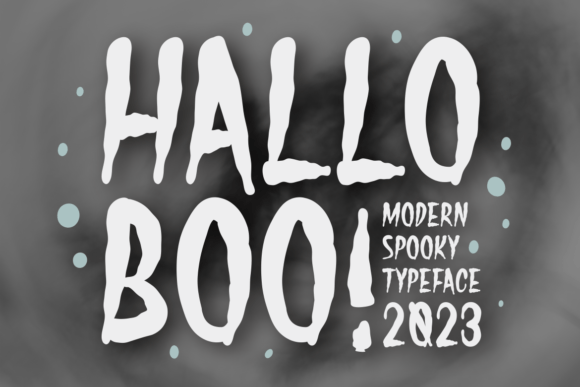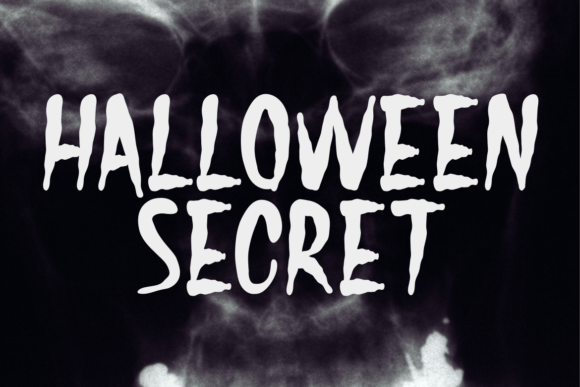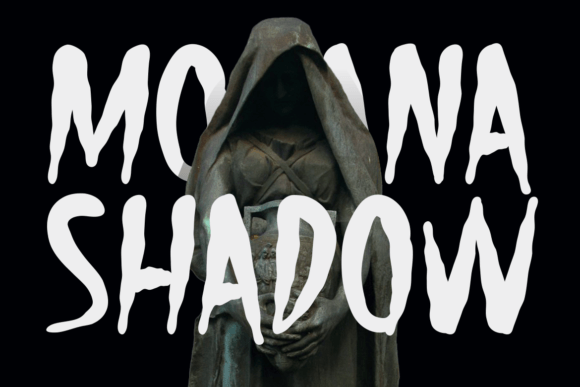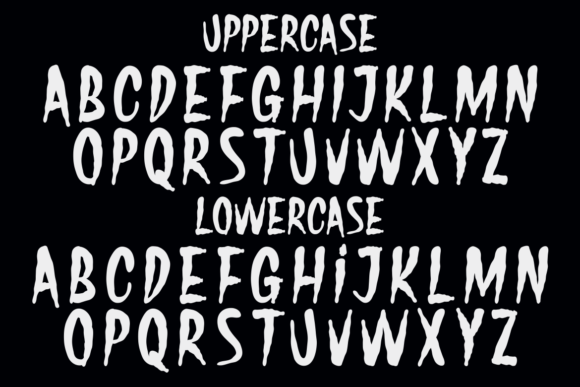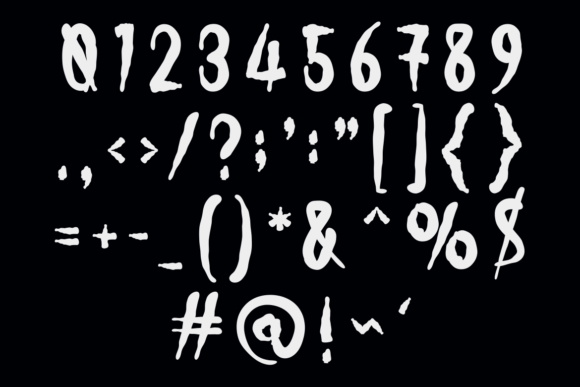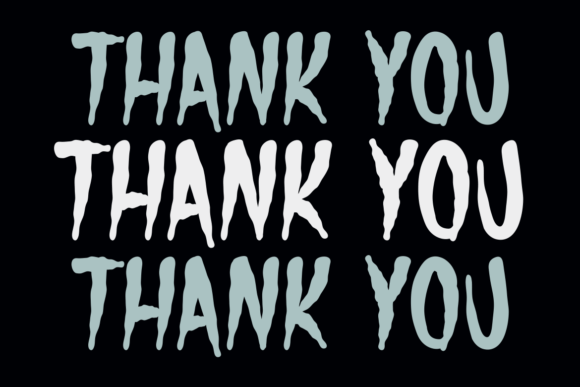
Sparking the Spirit of Halloween: The Magic of Hallo Boo Font
As the sun sets on a crisp autumn evening, the air is filled with the sweet scent of pumpkin spice and the eerie glow of jack-o-lanterns. It’s the perfect time to let your creativity run wild and get into the spooky spirit of Halloween. For designers, the key to capturing this magical atmosphere lies in the perfect font – one that exudes mystery, intrigue, and a hint of darkness. Enter the Hallo Boo Font, a display font specifically designed to transport your audience to a world of Halloween wonder.
With its unique blend of eerie elegance and playful charm, the Hallo Boo Font is a valuable tool for designers looking to create unforgettable Halloween-themed media. From party invitations to website designs, this font adds an air of sophistication and whimsy that’s sure to captivate your audience. Whether you’re a seasoned designer or just starting out, the Hallo Boo Font is a must-have in your toolkit for creating spellbinding Halloween content.
Key Features of Hallo Boo Font
- Character Count: 1000+ glyphs, including Latin, Cyrillic, and Greek alphabets
- Unique Characteristics: Distinctive, playful, and whimsical design with rounded edges and bold lines, making it perfect for Halloween-themed designs, children’s books, and more
Haloo Boo Font Review
First of all, let’s talk about what I like about the Hallo Boo font. ✨ I think it’s perfect for creating a spooky atmosphere, especially around Halloween. The distressed, handwritten style gives off a unique and playful vibe that’s sure to grab attention. I also appreciate how versatile it is – it works well for both digital and print projects, from social media graphics to posters and flyers.
Another thing I like is the font’s character set. ✨ It includes a wide range of punctuation marks and special characters, which makes it easy to add a personal touch to your designs. Plus, the font is available in several weights, from Light to Black, which gives you plenty of options for customizing the look and feel of your project.
While I love the Hallo Boo font, there are a few things to keep in mind. ⚠️ For one, it’s not the most readable font, especially in smaller sizes. This can make it difficult to use for body text or any other situation where readability is crucial. Additionally, the font’s distressed style can be a bit over-the-top for some projects, so it’s essential to use it sparingly.
Overall, I think the Hallo Boo font is a great addition to any designer’s toolkit. While it may have some limitations, its unique style and versatility make it perfect for creating eye-catching designs that are sure to stand out. Just be sure to use it wisely and balance it with other fonts to avoid overwhelming your audience.
- Distressed, handwritten style
- Wide range of punctuation marks and special characters
- Available in several weights (Light to Black)
- Perfect for digital and print projects
Practical Application Guide for “Hallo Boo Font”
Use the “Hallo Boo Font” to add a playful and spooky touch to your designs. Try pairing it with other bold fonts for a fun and eye-catching look.
Experiment with different font sizes and colors to create a unique and attention-grabbing design.
The “Hallo Boo Font” is perfect for:
- Halloween-themed designs and marketing materials.
- Spooky and mysterious branding and logos.
- Play